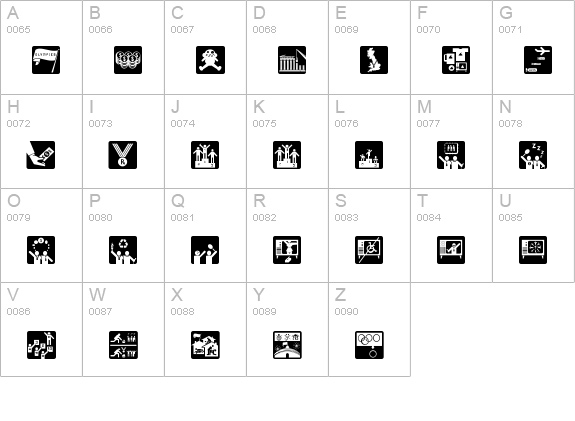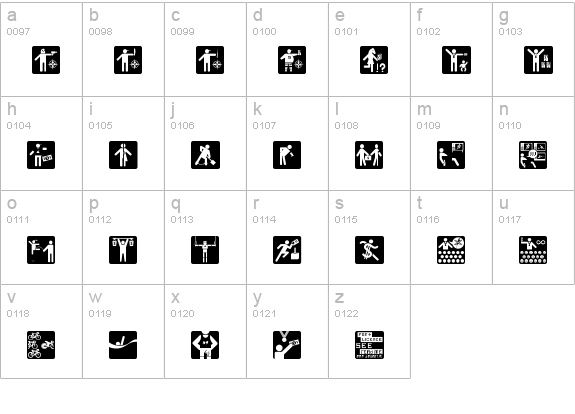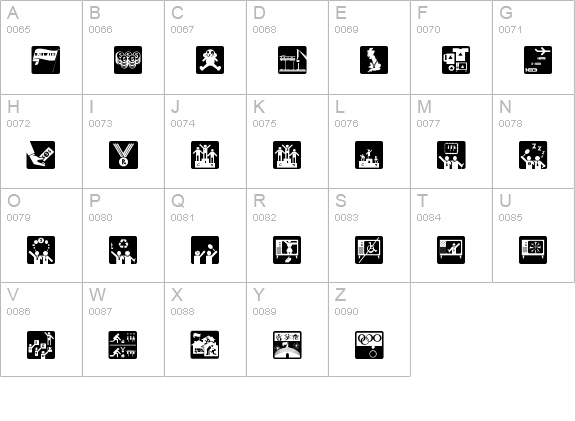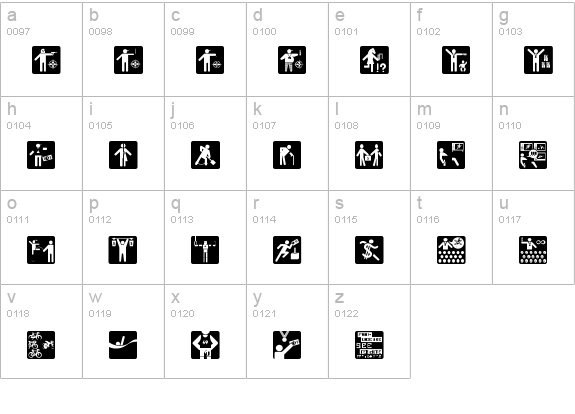
Olympukes Dark Font Details
Introducing Olympukes Dark font, a bold and striking typeface designed to make a powerful statement. This unique font features sharp edges and a modern aesthetic, perfect for adding a touch of sophistication to your design projects. Whether you're creating posters, logos, or social media graphics, Olympukes Dark font is sure to grab attention and leave a lasting impression. And the best part? Olympukes Dark font is available for free download at FontsMarket.com. That's right, you can easily access this impressive font without breaking the bank. So why wait? Elevate your designs with Olympukes Dark font today!